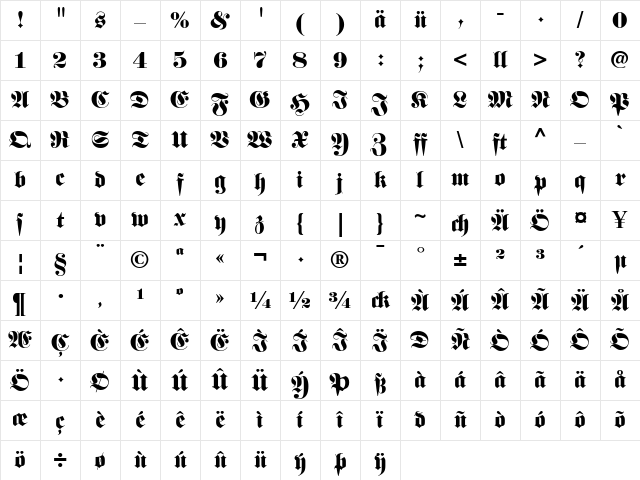
Complete FetteFrakturDfr Roman glyph index. Displaying only characters natively supported by FetteFrakturDfr Roman font.
FetteFrakturDfr draws on the rich tradition of blackletter calligraphy, with dense, angular strokes that evoke medieval manuscripts and old-world craftsmanship.
Font Pairing: Pair with a clean neutral sans-serif for body copy to let FetteFrakturDfr's character lead without overwhelming the composition.
Pro Tip: Reserve FetteFrakturDfr for display and logo use - pair it with a clean sans-serif for body copy to prevent the composition from feeling oppressive.